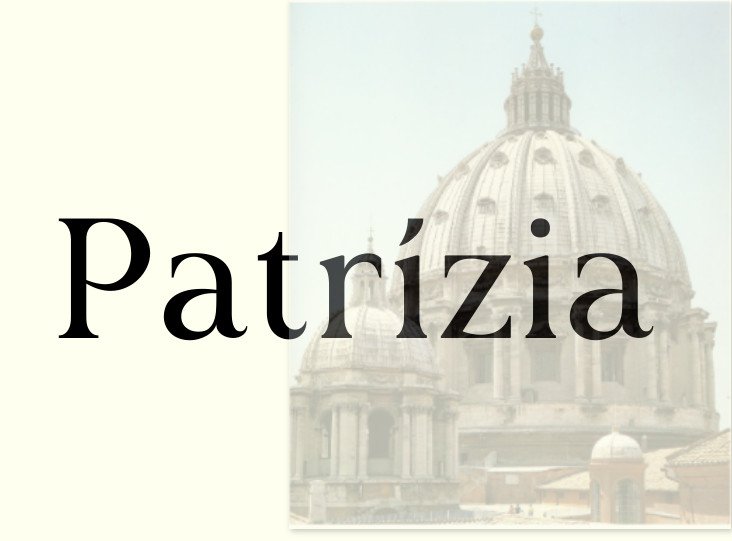
Patrízia Font
Patrízia typeface designed by Guilherme Bidarra is a sophisticated modern serif font inspired by the Renaissance era. This typeface has can be used for modern theme or vintage looks. It carries a modernity expressed in its serifs and ligatures based on Italian architecture. It also has a wide variety of glyphs that include different alphabets.